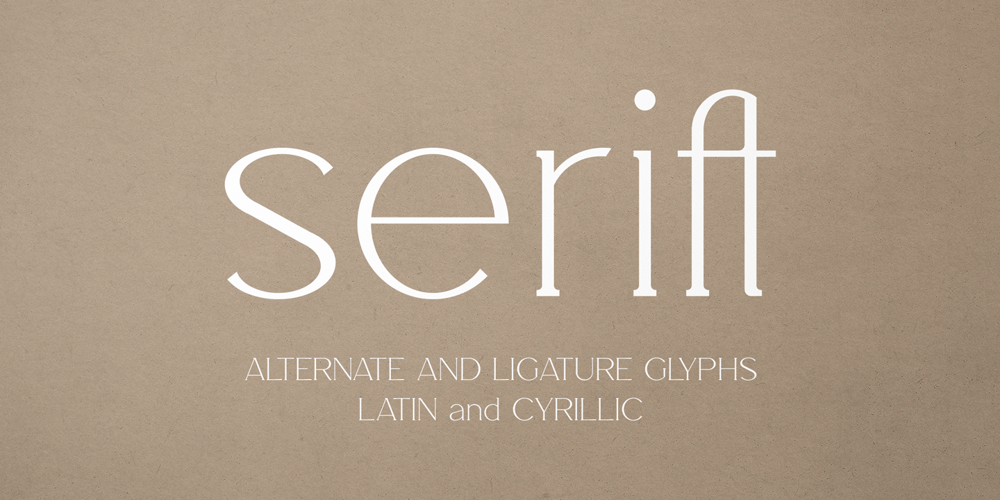
Serift
Serift font
Serift Font Family was designed by Vladimir Fedotov, Plamen Petrov and published by VP Creative Shop. Serift contains 1 styles and family package options. Introducing Salve – Elegant Serif font – latin and cyrillicSalve is elegant and wide font loaded with 95 languages support, alternate and ligature glyphs to make you typography truly unique!